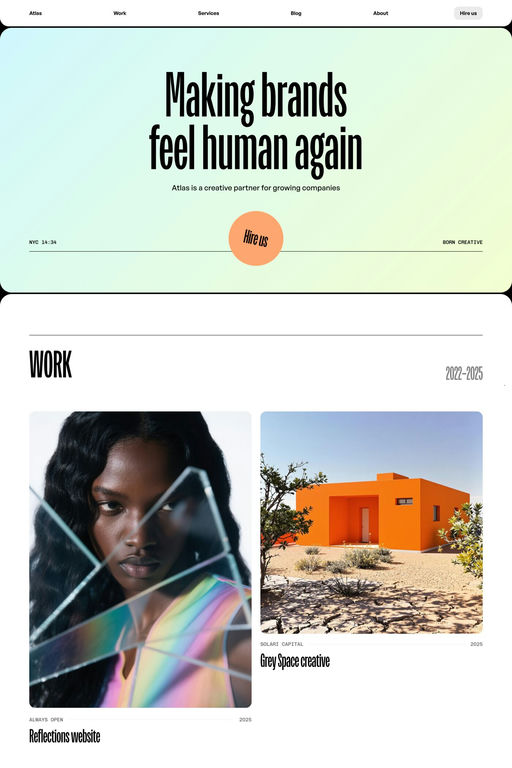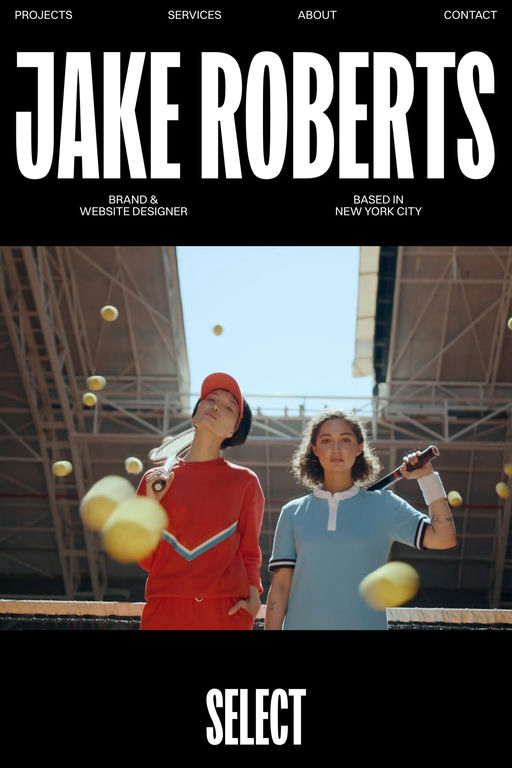
New Title is a serif typeface from Indian Type Foundry.
New Title is a typeface family for film titles and credits sequences. Its design is narrow and utilitarian. The compressed letterforms are made up of almost monolinear strokes – only some characters have only visible contrast.
A1 features 2 websites using New Title, including Atlas Studio and Jake®. They lean towards Big type, Display font, and Gradients design styles, and they’re most often built with Framer.